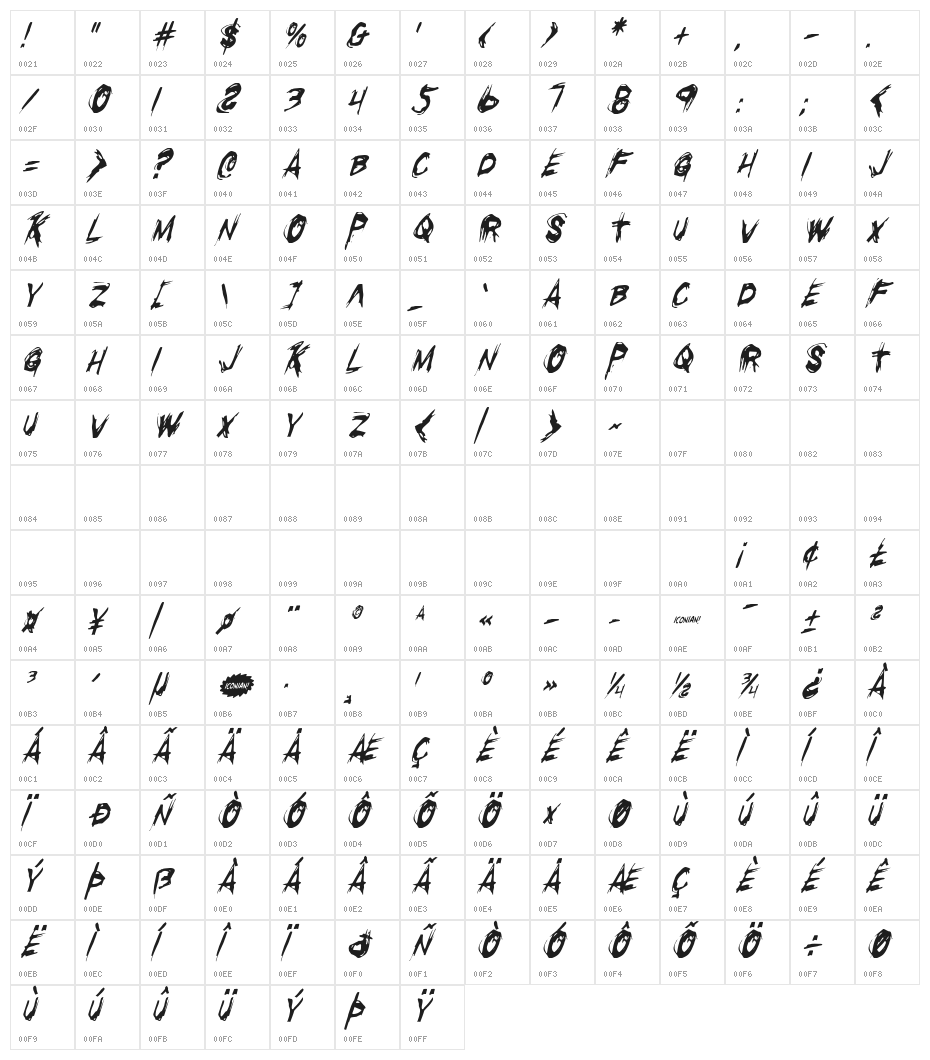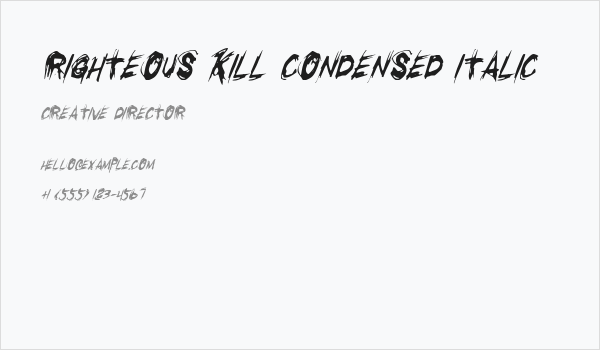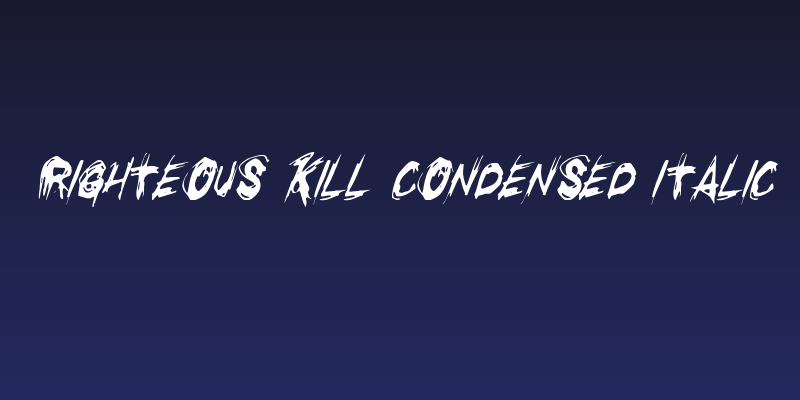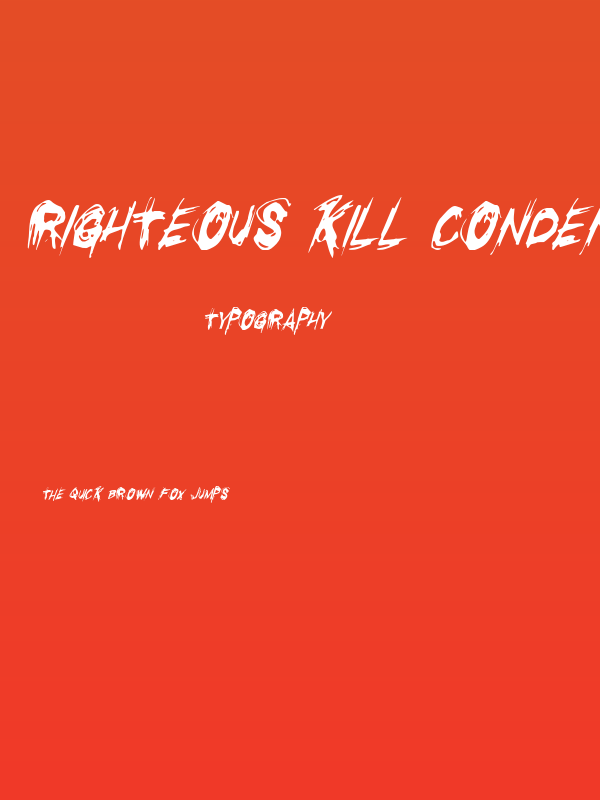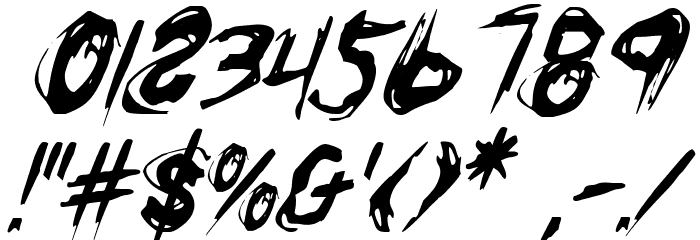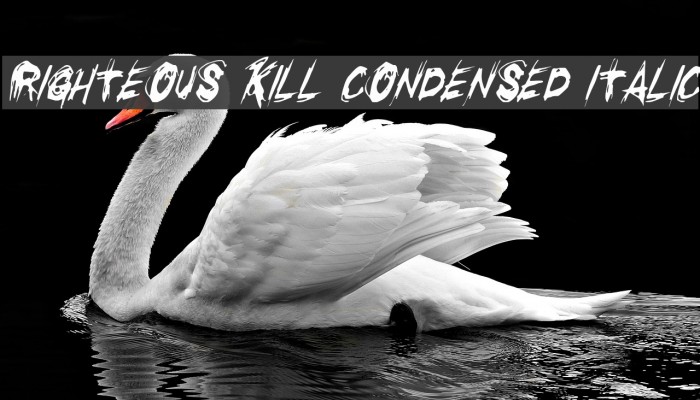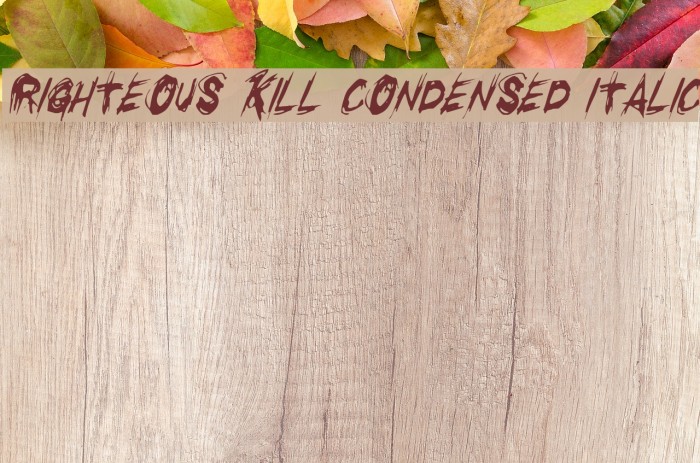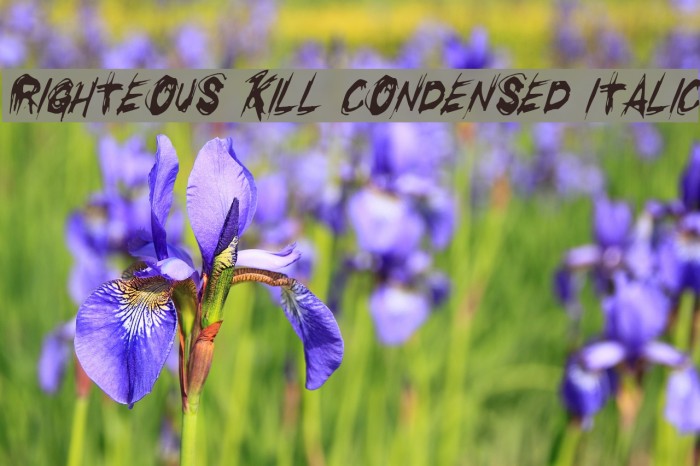
Righteous Kill Condensed Italic Font
Righteous Kill Condensed Italic Description
This font exudes a bold and aggressive style, characterized by its sharp, jagged edges and dynamic, slanted orientation. The letters appear as if they are in motion, with strokes that mimic the appearance of brush or ink splatters. This gives the font a raw, energetic feel, making it stand out with its unique and edgy aesthetic. The uppercase and lowercase letters maintain a consistent style, with exaggerated serifs and varying stroke widths that add to its dramatic impact. The numerals and special characters follow the same design principles, ensuring a cohesive look throughout. The condensed nature of the font allows for efficient use of space, while the italic slant enhances its sense of urgency and movement.
| Overall Style | Modern, Edgy |
| Proposed Projects | Ideal for projects requiring a strong, impactful visual statement such as movie posters, album covers, or edgy branding materials. |